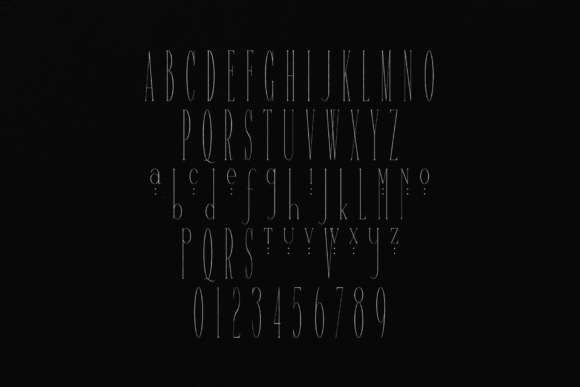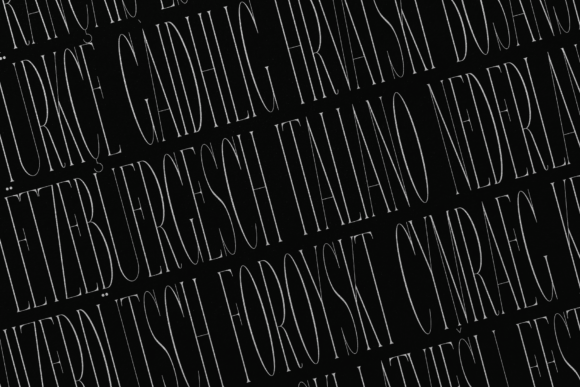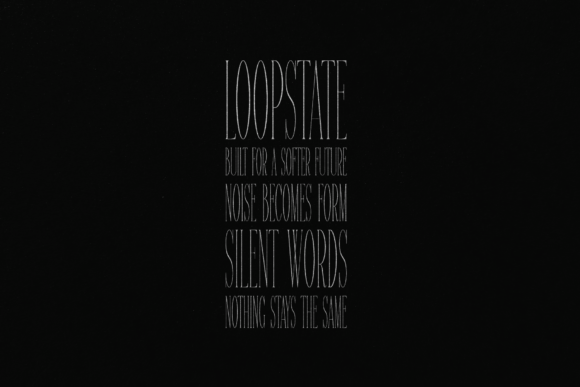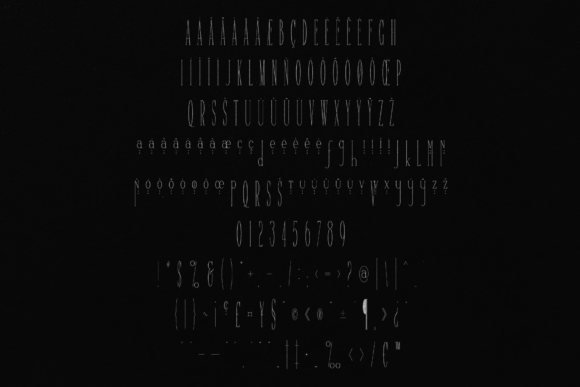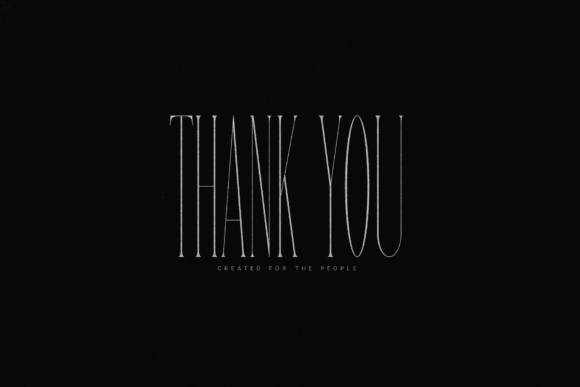
Discover the Elegance of Brume Font: A Sophisticated Choice for Modern Design
In the world of typography, few fonts manage to convey sophistication, calm, and modern refinement as effortlessly as Brume. This elegant, condensed display font is characterized by its ultra-thin strokes and tall proportions, making it an ideal choice for designers seeking to add a touch of luxury and minimalism to their projects. Whether you’re working on high-end editorial design, fashion branding, luxury visuals, or atmospheric typography, Brume is a versatile and powerful tool that can elevate your work to new heights.
The Unique Characteristics of Brume Font
Brume’s delicate construction and extended vertical rhythm set it apart from other fonts. Its ultra-thin strokes give it a light and airy feel, while its tall proportions create a sense of grandeur and elegance. This combination of characteristics makes Brume perfect for designs where subtlety and emotion are more important than boldness and weight. The font’s minimalist approach to design ensures that it balances simplicity with character, making it an excellent choice for designers who want to create a lasting impression without overwhelming their audience.
Ideal Applications for Brume Font
Brume performs beautifully in a variety of design applications, including headlines, posters, magazine layouts, album covers, and cinematic titles. Its elegant and refined appearance makes it particularly well-suited for projects that require a touch of sophistication and luxury. Some of the ideal applications for Brume include:
- Avant-garde fashion editorials: Brume’s unique blend of minimalism and elegance makes it perfect for fashion designs that require a touch of sophistication and modernity.
- Indie film posters: The font’s delicate construction and extended vertical rhythm make it an excellent choice for film posters that need to convey a sense of mystery and intrigue.
- High-concept branding: Brume’s ability to balance minimalism with character makes it an ideal choice for brands that want to create a lasting impression without overwhelming their audience.
Using Brume Font Effectively
Because of its vertically dominant and delicate nature, Brume functions more as a visual element than a traditional font. It’s best used for large-scale hero text where the overlapping lines and narrow spacing can create an intricate, lace-like pattern. When using Brume, consider the following tips:
- Pair it with contrasting fonts: Brume’s delicate construction makes it an excellent choice for pairing with bold and contrasting fonts. This contrast can create a visually appealing and engaging design.
- Use it for large-scale text: Brume is designed for large-scale hero text, where its unique characteristics can be fully appreciated. Avoid using it for body text or small font sizes, as it may lose its impact.
- Experiment with spacing and arrangement: Brume’s narrow spacing and overlapping lines can create a beautiful, intricate pattern. Experiment with different spacing and arrangement techniques to find the perfect look for your design.
Brume is an artistic powerhouse of a font, perfect for designers who want to add a touch of sophistication, calm, and modern refinement to their work. Its unique blend of minimalism and elegance makes it an ideal choice for high-end editorial design, fashion branding, luxury visuals, and atmospheric typography. By understanding the characteristics and ideal applications of Brume, designers can unlock its full potential and create stunning designs that leave a lasting impression.